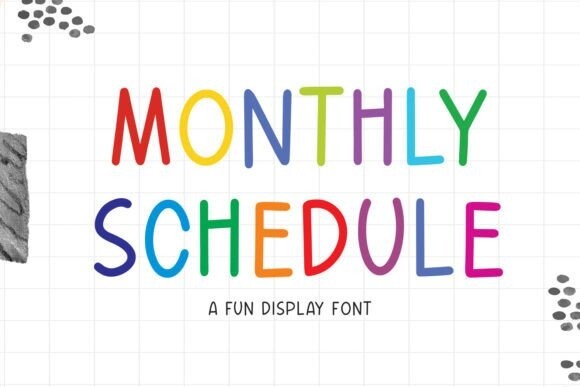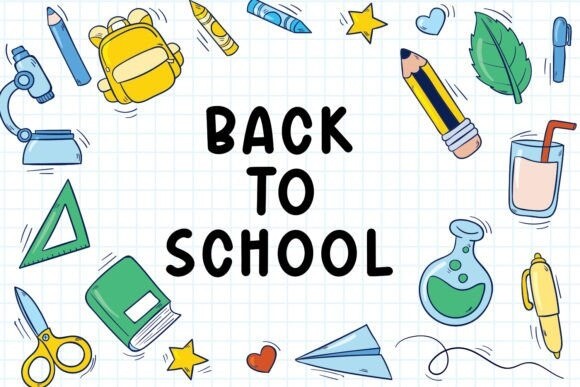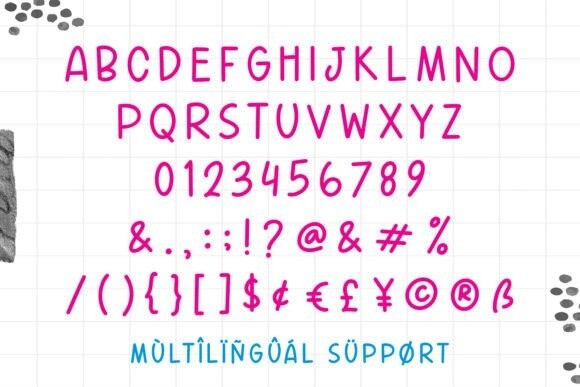
Monthly Schedule Font
Monthly Schedule Font is a fun display font. It is a clean and natural handwritten font. This font is ideal for crafting, branding, decorating, farmhouse designs, shirts, SVG designs, branding, blogs, logos, invitations, and more!
Use this font for any crafting project that requires a personalized look!